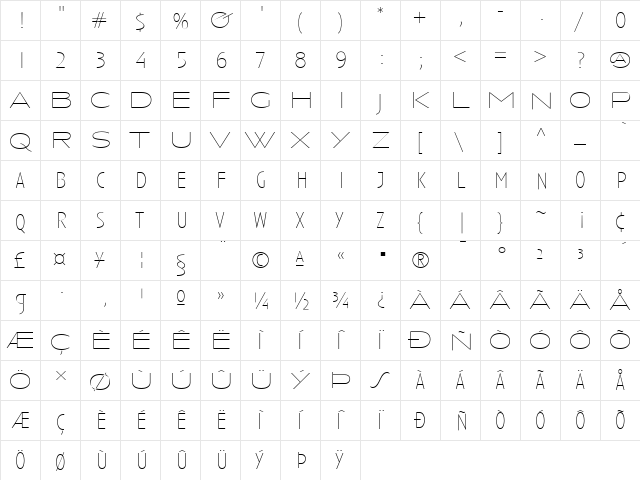
Anisette Thin Regular
| Foundry | The Font Bureau Inc |
| Designer | Jean-Francois Porchez |
Design Context for Anisette Thin Typeface
Anisette Thin offers clean, dependable letterforms without strong stylistic allegiance, making it a practical choice for designers who need flexibility. Its slender proportions lend an understated elegance to any composition.